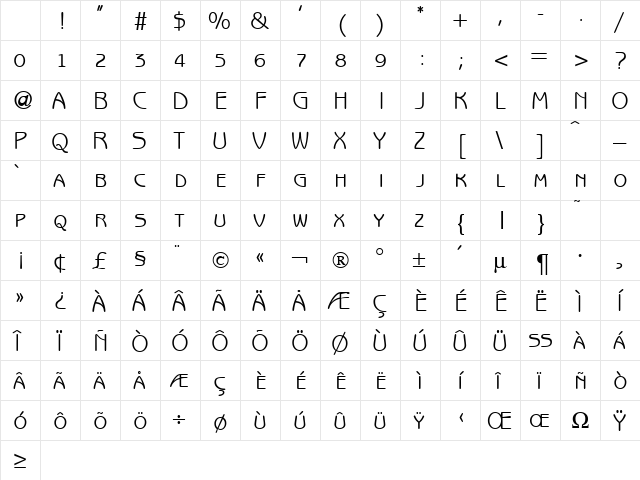
BenjaminSansSmc Regular
Design Context for BenjaminSansSmc
BenjaminSansSmc is a composed and adaptable typeface that performs quietly and consistently across a wide range of design contexts.